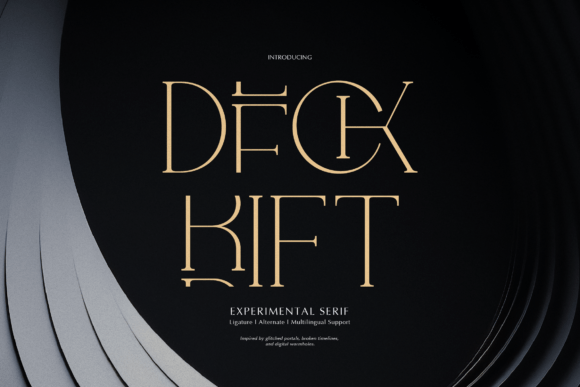
Introducing Deck Rift Font: A Futuristic Serif Font for the Bold and Avant-Garde
In the world of typography, fonts play a crucial role in shaping the visual identity of a brand, product, or artwork. With the ever-evolving landscape of design, it’s essential to stay ahead of the curve with innovative and attention-grabbing fonts. One such font that has been making waves in the design community is Deck Rift, a cutting-edge experimental serif font that fuses futuristic elegance with editorial flair.
What is Deck Rift Font?
Deck Rift is a revolutionary serif font that combines the sophistication of traditional typography with the boldness of futuristic design. This font is perfect for designers looking to create sci-fi covers, avant-garde branding, and bold visual identities that demand attention. Inspired by glitched portals and digital wormholes, Deck Rift balances refined form with surreal distortion, making it an ideal choice for projects that require a unique and captivating visual language.
Key Features of Deck Rift Font
So, what sets Deck Rift apart from other fonts? Here are some of its key features:
- Unique Ligatures: Deck Rift boasts a range of unique ligatures that add a touch of elegance and sophistication to your text.
- Alternate Characters: The font includes alternate characters that allow you to experiment with different styles and variations.
- Geometric Quirks: Deck Rift’s geometric quirks add a touch of futurism and avant-garde flair to your text.
Design Inspiration
Deck Rift’s design inspiration comes from the world of science fiction and technology. The font’s creator was inspired by the idea of glitched portals and digital wormholes, which is reflected in the font’s unique and distorted geometric shapes. This inspiration is evident in the font’s refined form and surreal distortion, making it perfect for projects that require a bold and futuristic visual identity.
Use Cases for Deck Rift Font
So, where can you use Deck Rift font? The possibilities are endless, but here are some use cases to get you started:
- Sci-Fi Covers: Deck Rift is perfect for creating eye-catching sci-fi covers that demand attention.
- Avant-Garde Branding: The font’s unique and bold design makes it ideal for avant-garde branding and visual identities.
- Digital Art: Deck Rift can add a touch of futurism and sophistication to your digital art projects.
Tips for Using Deck Rift Font
To get the most out of Deck Rift font, here are some tips to keep in mind:
- Experiment with Ligatures: Deck Rift’s unique ligatures can add a touch of elegance and sophistication to your text. Experiment with different ligatures to find the one that works best for your project.
- Play with Alternate Characters: The font’s alternate characters can help you create a unique and bold visual identity. Don’t be afraid to experiment with different characters to find the one that works best for your project.
- Balance Refined Form with Surreal Distortion: Deck Rift’s design is all about balancing refined form with surreal distortion. Experiment with different font sizes and styles to find the perfect balance for your project.
In conclusion, Deck Rift font is a cutting-edge experimental serif font that fuses futuristic elegance with editorial flair. With its unique ligatures, alternate characters, and geometric quirks, this font is perfect for designers looking to create bold and avant-garde visual identities. Whether you’re working on a sci-fi cover, avant-garde branding, or digital art project, Deck Rift is sure to make a statement.